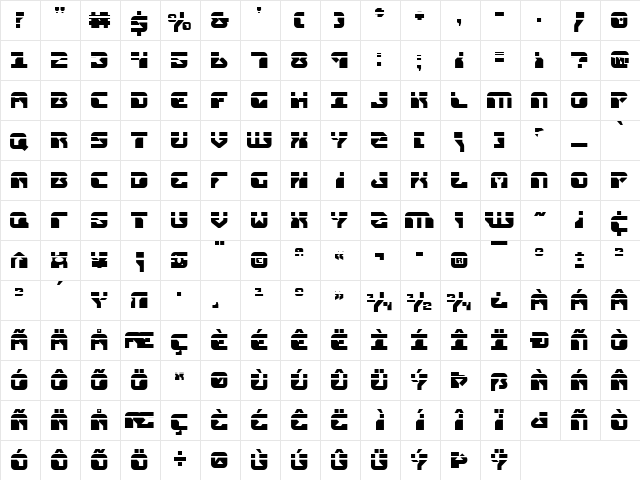
Replicant Laser Laser
Design Context for Replicant Laser Typeface
Replicant Laser is a composed and adaptable typeface that performs quietly and consistently across a wide range of design contexts.